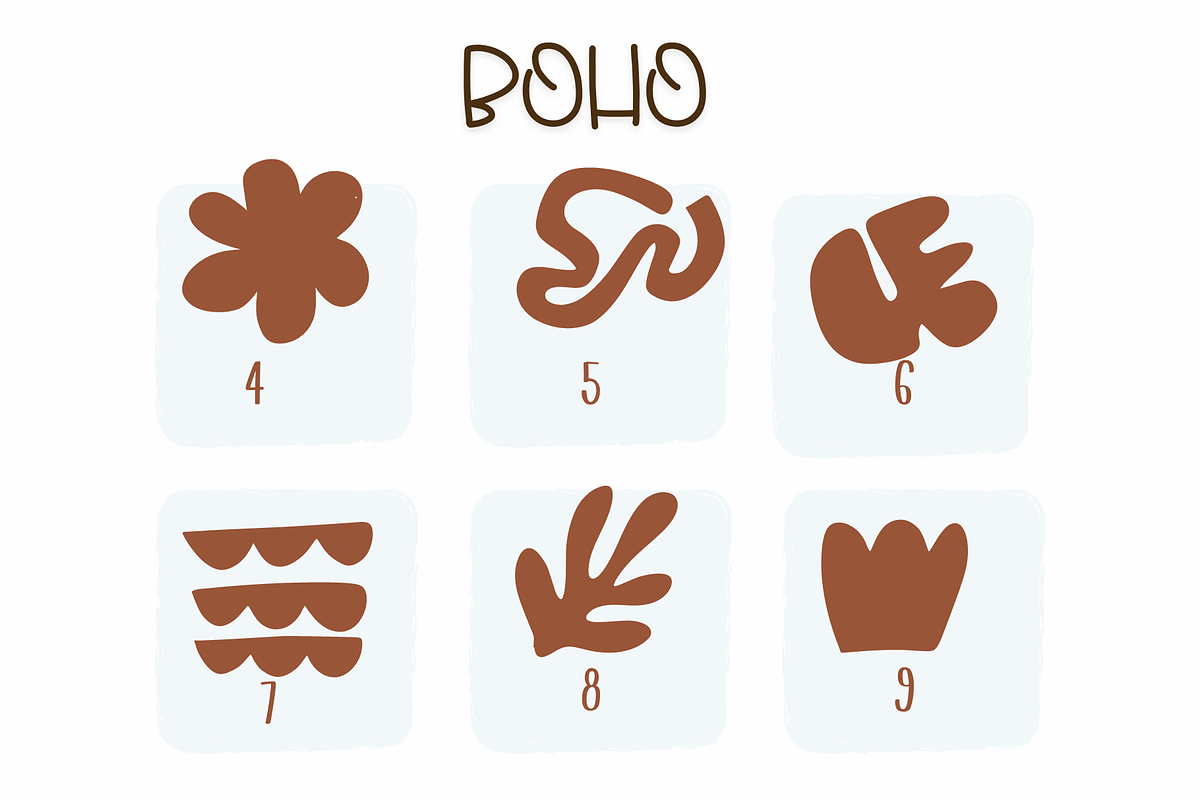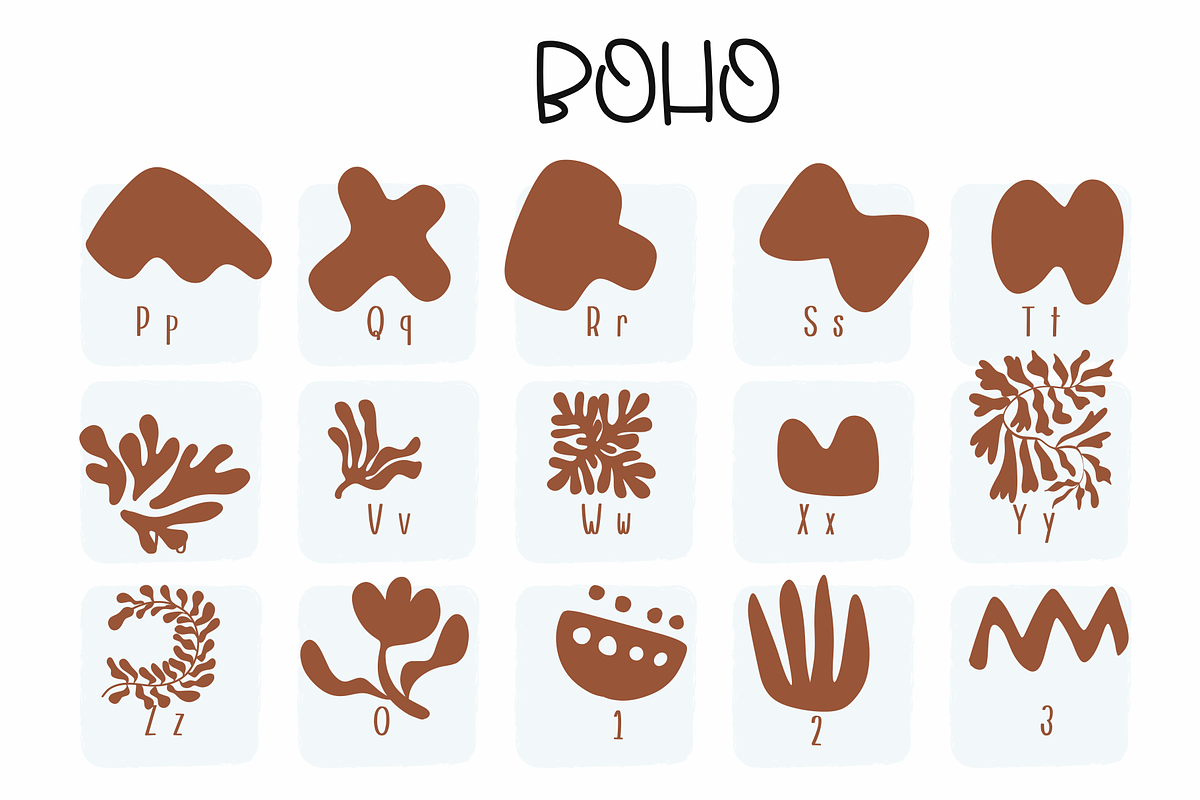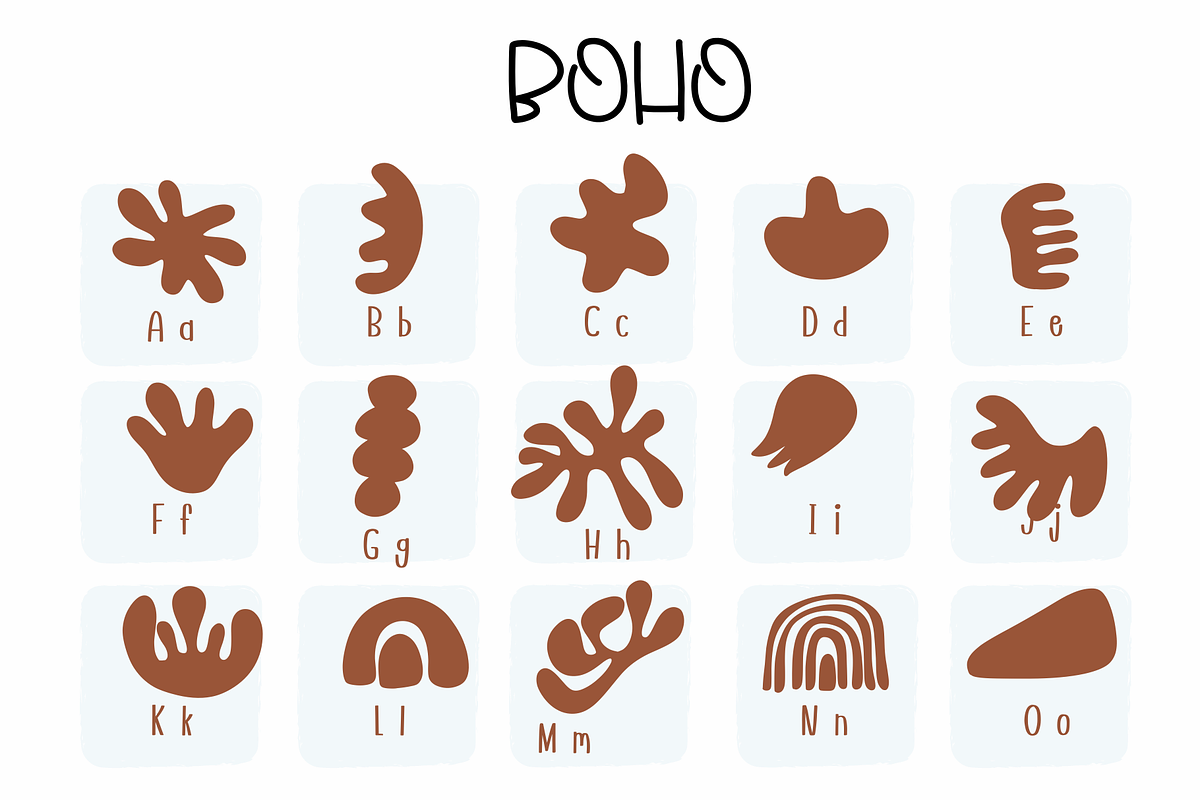
Boho | Symbols Fonts
Boho is a symbol fonts. You can use it for taking notes, writing a diary, or making greeting cards. However, you can still use it for other designs, such as banners, content, mugs, cards, shirts, stationery, social media posts, and more!
- Boho Regular
Boho | Symbols Fonts by Sirinart fits naturally into Branding, posters, packaging, typography.